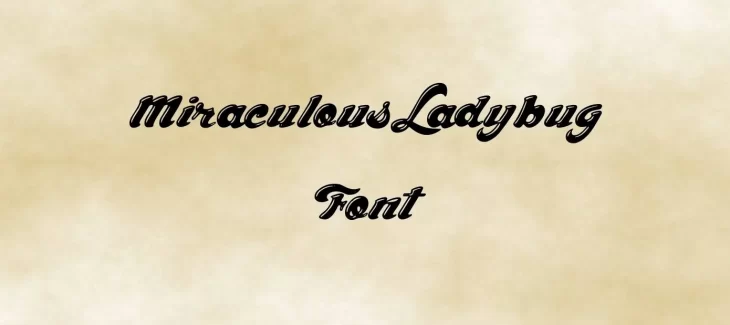
Miraculous Ladybug Font is a French CGI superhero television series created by Thomas Astruc and produced by Zagtoon, Method Animation. The series features two Parisian teenagers, Marinette Dupain-Cheng and Adrien Agreste, who transform into the superheroes Ladybug and Cat Noir, respectively, to protect the city from supervillains.
The show was first released in December 2015 and has since been broadcast on Disney Channel and Disney Junior worldwide. The show’s second season began airing in April 2018.
Who Used Miraculous Ladybug Font?
This font is commonly used for kid’s party invitations and other official documents. The designers wanted the font to be easily readable, but also to have some personality. They achieved this by using a mix of round and sharp shapes. You can also utilize the typeface in your display designs and pair it with other typefaces like freshman font which is much similar to this and has a pairing personality.
The Font is a fun and unique font that is sure to add some personality to any project you use it for.
Miraculous Ladybug Font Family Appearance
| Designer | Thomas Astruc |
| Style | Script |
Who designed the Miraculous Ladybug Font?
The Font was designed by French designer Thomas Astruc. He is best known for his work on the show’s CGI animation.
What are some of the other features of Miraculous Ladybug texture?
In addition to being a fun and unique font, Miraculous Ladybug typeface also has a few other features that make it stand out. One of these features is that it includes a variety of different character sets.